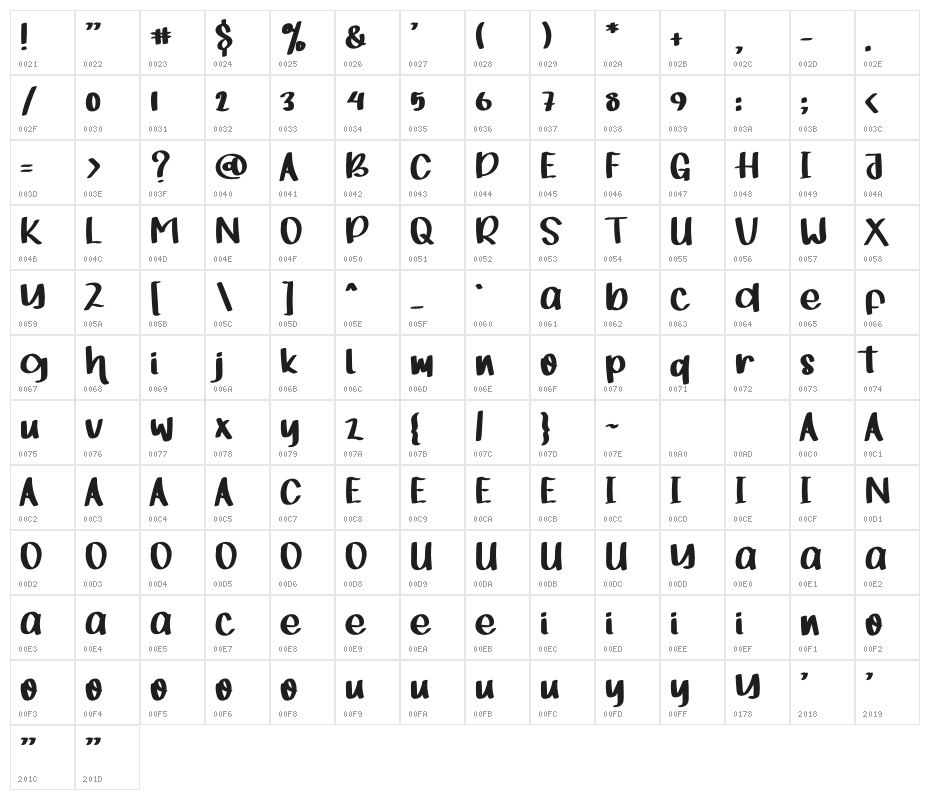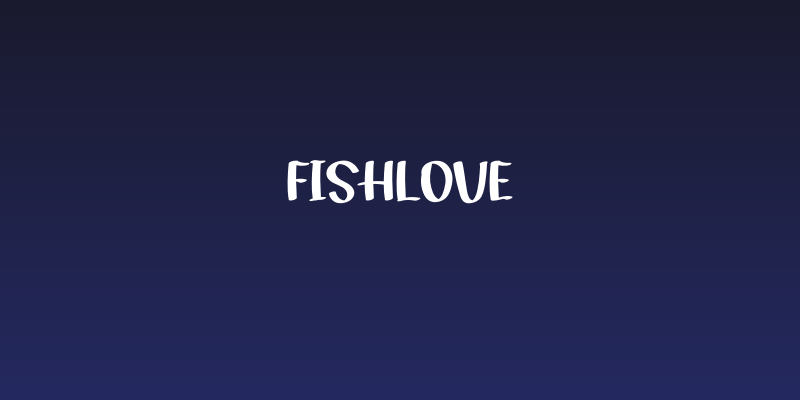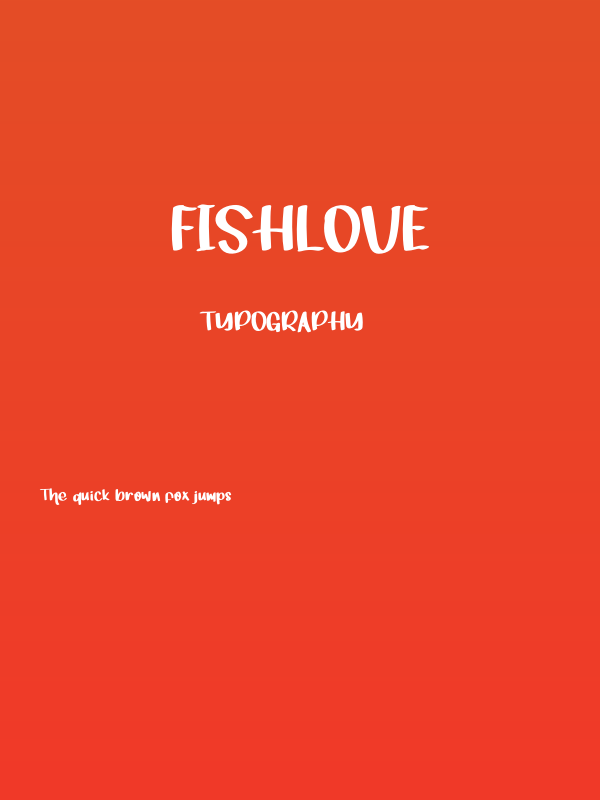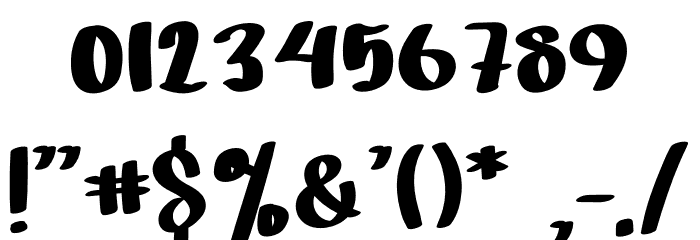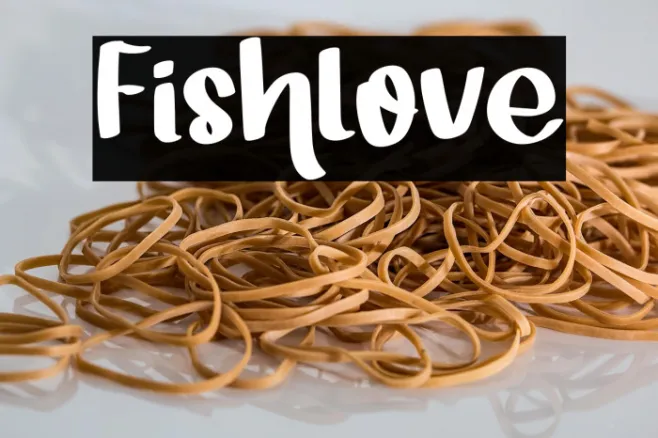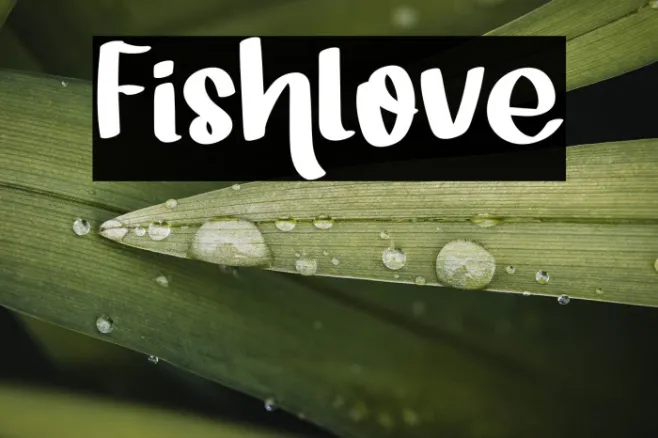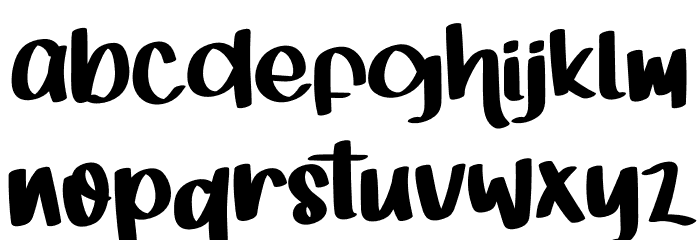
Fishlove Font
Fishlove Description
This font features a bold and playful handwritten style, characterized by its thick strokes and slightly irregular letterforms. The letters have a casual, friendly appearance, with a dynamic flow that suggests movement and energy. The uppercase and lowercase letters maintain a consistent style, with rounded edges and a slightly slanted orientation, giving the font a lively and approachable feel. The numerals and special characters are designed to match the overall aesthetic, ensuring a cohesive look across all text elements. This font is ideal for projects that require a personal touch or a fun, informal vibe.
| Overall Style | Playful, Casual |
| Proposed Projects | Great for greeting cards, children's books, playful branding, and social media graphics. |